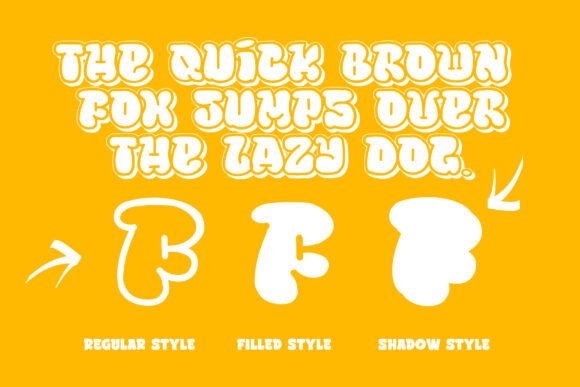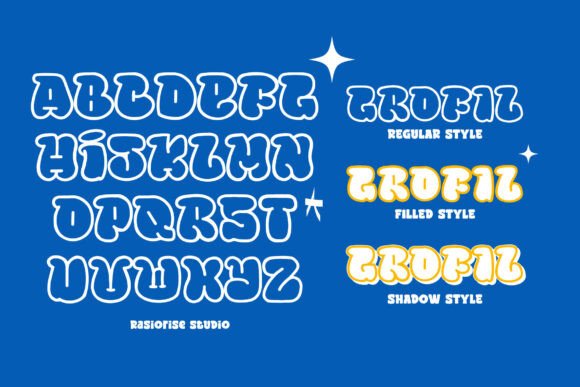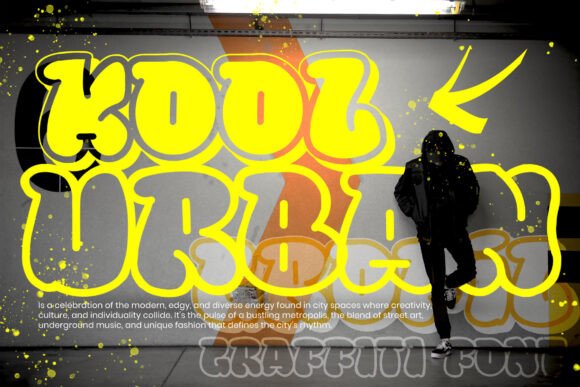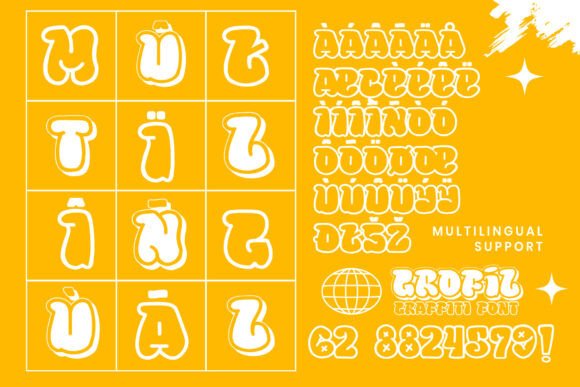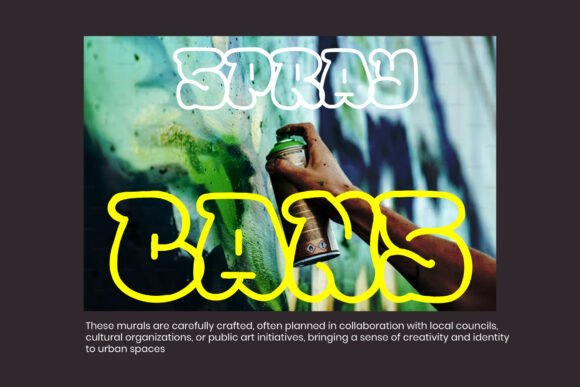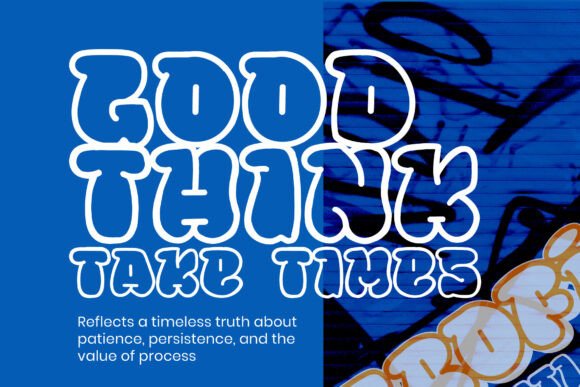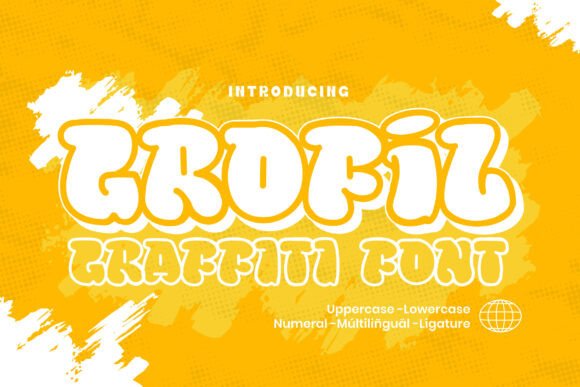
Unleash Your Creativity with Grofil Font: The Ultimate Graffiti Font
Are you a designer, artist, or crafty individual looking for a bold and eye-catching font to elevate your projects? Look no further than Grofil Font, a stunning graffiti font that embodies the spirit of street art. Inspired by the vibrant and dynamic world of graffiti, Grofil is perfect for anyone seeking to add a touch of urban flair to their designs.
What is Grofil Font?
Grofil is a unique and artistic font that blends hand-drawn, spray can-inspired street art with a mix of playful, pop-like lines and wildstyle elements. This graffiti font is characterized by its bold, throw-up style, which is reminiscent of the iconic street art that adorns city walls. With its easy-to-read characters and artistic edge, Grofil is ideal for creating stunning digital street graffiti typography for promotions, headlines, and more.
The Inspiration Behind Grofil Font
Grofil Font draws inspiration from the raw energy and creativity of graffiti art. The font’s design is influenced by the spray-painted letters and symbols that cover urban landscapes, from subway trains to abandoned buildings. The result is a font that exudes a sense of rebellion, freedom, and self-expression.
Key Features of Grofil Font
- Bold and eye-catching design: Grofil Font features a bold, throw-up style that is sure to grab attention.
- Hand-drawn and artistic: The font’s hand-drawn design gives it a unique, artistic feel that sets it apart from more traditional fonts.
- Easy-to-read characters: Despite its bold and artistic design, Grofil Font remains easy to read, making it perfect for use in a variety of applications.
- Wildstyle elements: The font incorporates wildstyle elements, which add an extra layer of complexity and visual interest.
Grofil Font is versatile and can be used in a wide range of projects, including:
- Promotions and advertising: Use Grofil Font to create eye-catching promotional materials that stand out from the crowd.
- Book covers and publishing: Add a touch of urban flair to your book covers and other publishing materials.
- Fashion and apparel: Grofil Font is perfect for use in fashion design, from t-shirts to hats and more.
- Skateboards and sports: The font’s bold, graffiti-inspired design makes it a natural fit for skateboard and sports-related projects.
- Music and entertainment: Use Grofil Font to create bold and eye-catching posters, flyers, and other promotional materials for music and entertainment events.
- Merchandise and streetwear: Grofil Font is perfect for use in merchandise design, from t-shirts to hoodies and more.
Tips for Using Grofil Font
To get the most out of Grofil Font, here are a few tips to keep in mind:
- Experiment with different colors: Grofil Font looks great in a variety of colors, from bold and bright to muted and pastel.
- Play with texture and effects: Add an extra layer of depth and interest to your designs by experimenting with texture and effects.
- Use it sparingly: While Grofil Font is bold and eye-catching, it can be overwhelming if overused. Use it sparingly to create maximum impact.
Grofil Font is a unique and artistic graffiti font that is perfect for designers, artists, and crafty individuals looking to add a touch of urban flair to their projects. With its bold, throw-up style and easy-to-read characters, Grofil is ideal for creating stunning digital street graffiti typography for promotions, headlines, and more. So why wait? Unleash your creativity with Grofil Font and take your designs to the next level!